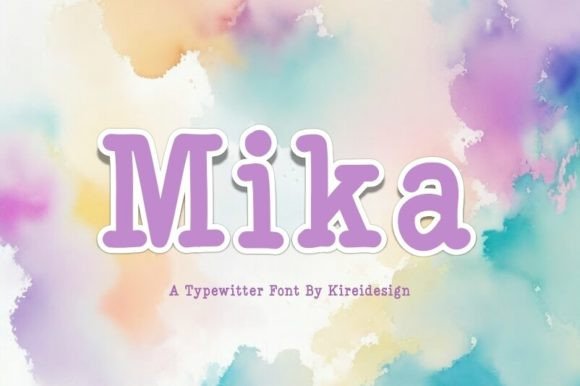
Embark on a typographic odyssey with Mika Font, the ultimate decorative font family that will redefine your creative vision. Its modern typewriter aesthetic, meticulously crafted by Kireidesign, captures the allure of nostalgia while propelling your designs into the future.
Mika's captivating charm lies in its ability to transform ordinary words into captivating works of art. Its meticulously designed glyphs dance across the page, evoking a sense of elegance and sophistication that will leave your audience spellbound. Whether you're a seasoned artist or a budding designer, Mika's versatility will ignite your imagination and unlock endless creative possibilities.
With its compatibility with both English and Spanish characters, Mika transcends linguistic boundaries, allowing you to communicate your message to a global audience. Its comprehensive range of standard punctuation glyphs ensures seamless integration into any project, from personal invitations to professional presentations.
Unleash your inner artist and let Mika Font guide you on a journey of typographic exploration. Its timeless beauty will elevate your designs, adding a touch of sophistication and intrigue that will captivate your audience. Embrace Mika, the font that embodies the essence of modern elegance, and watch your creative endeavors soar to new heights.